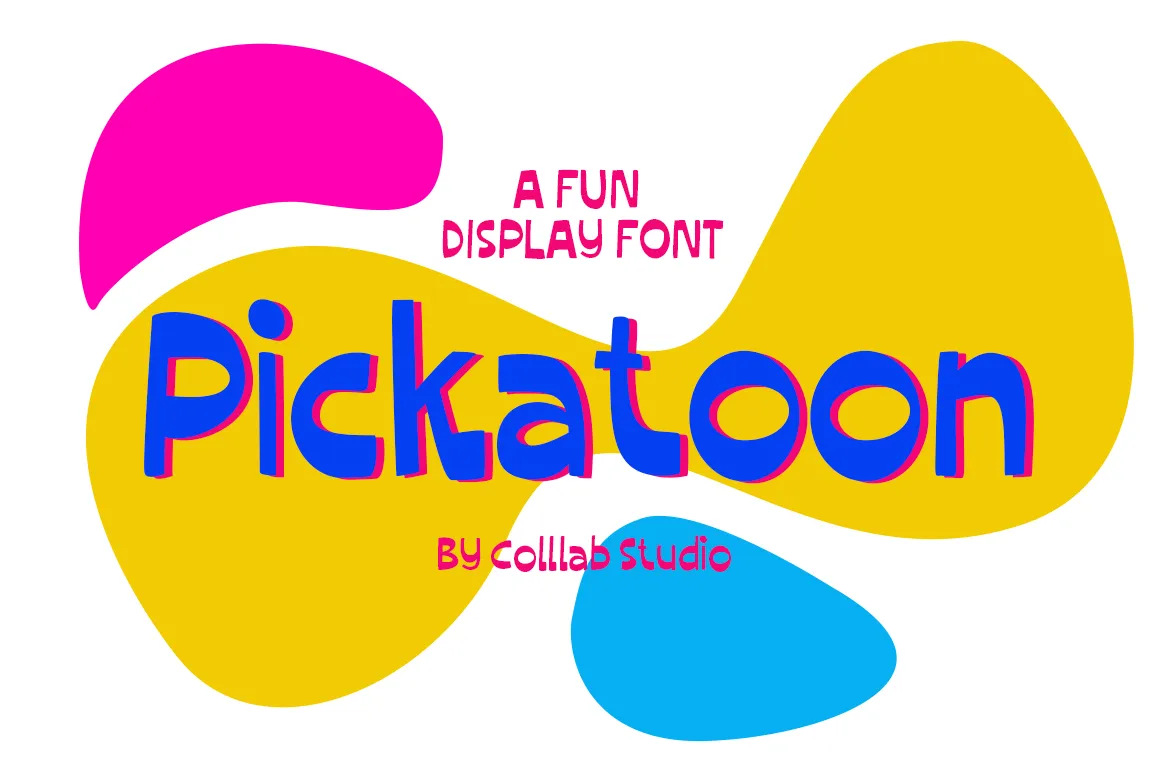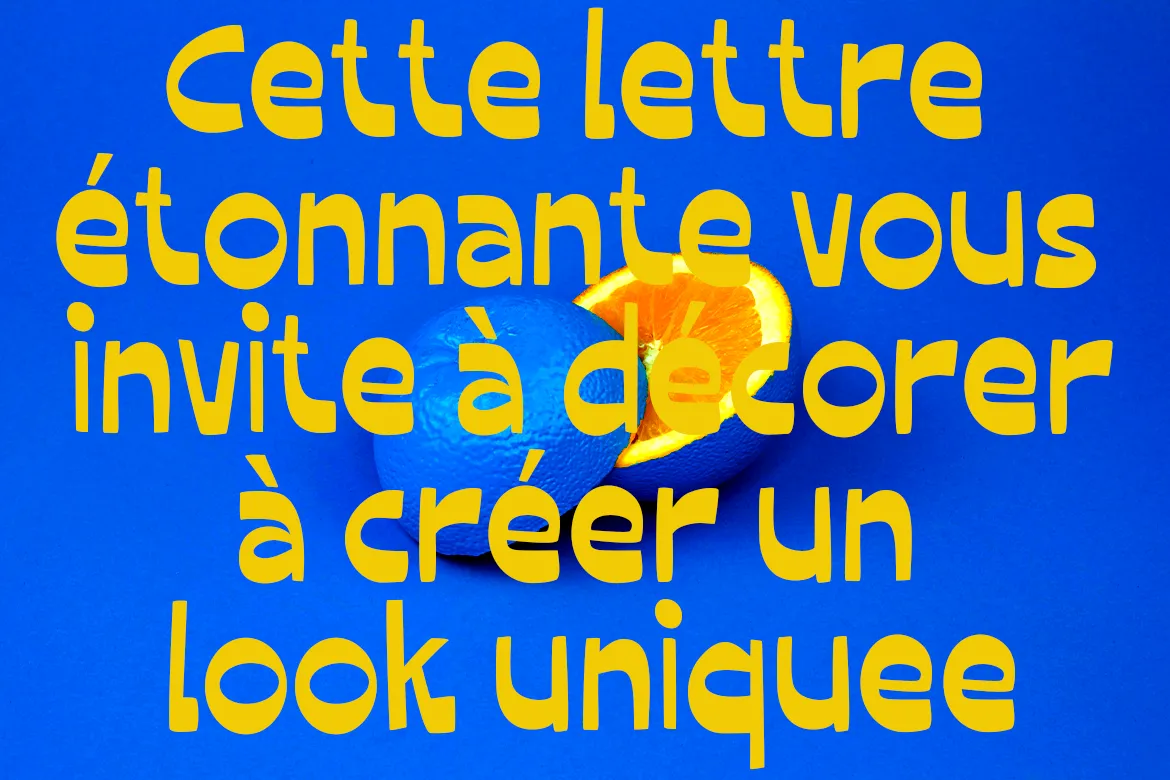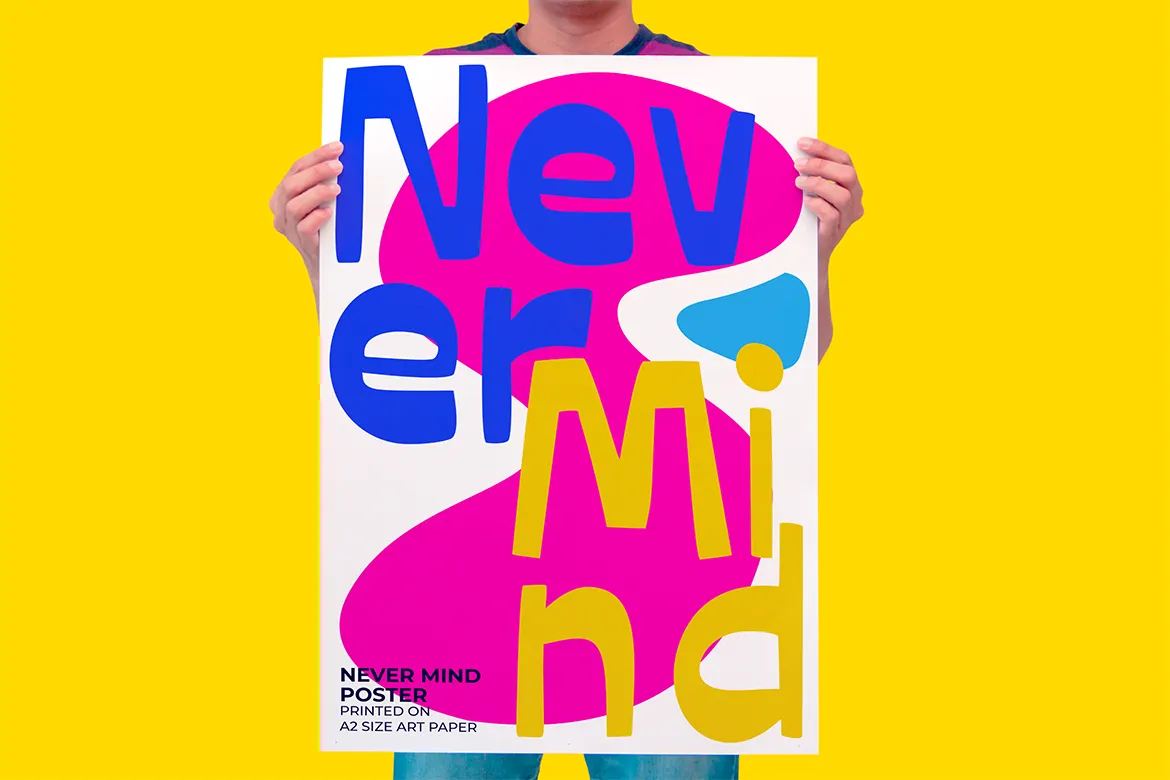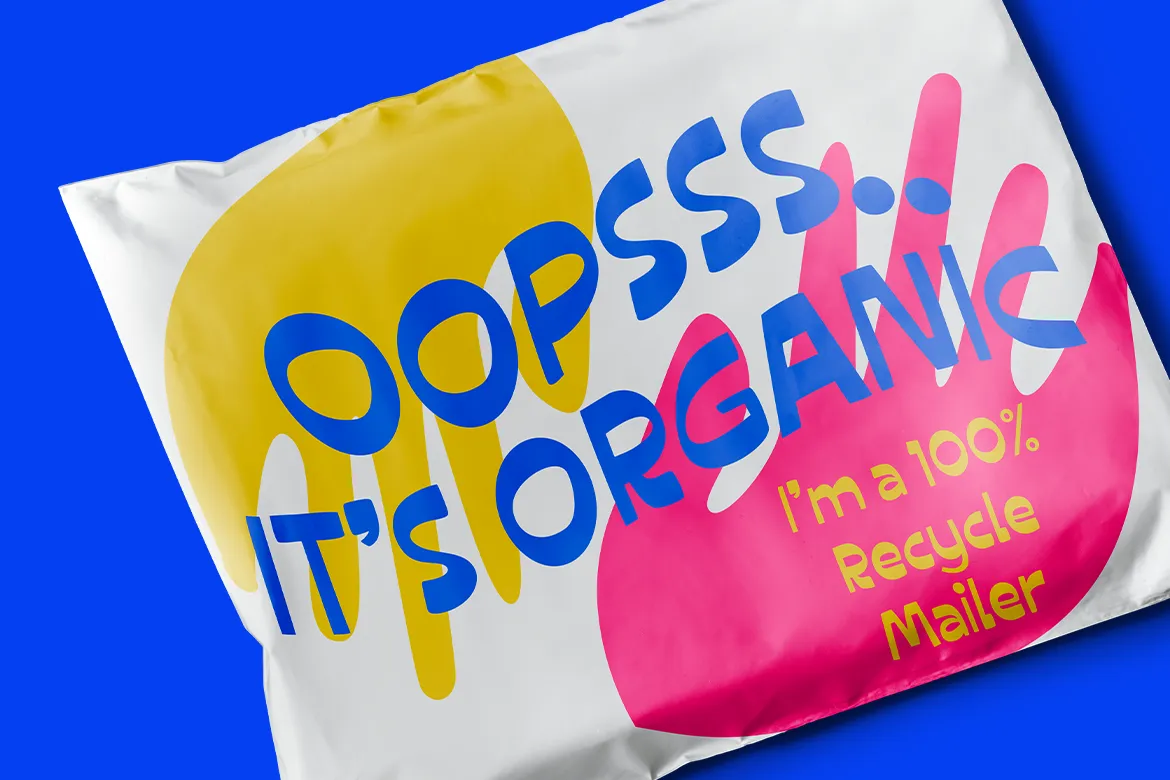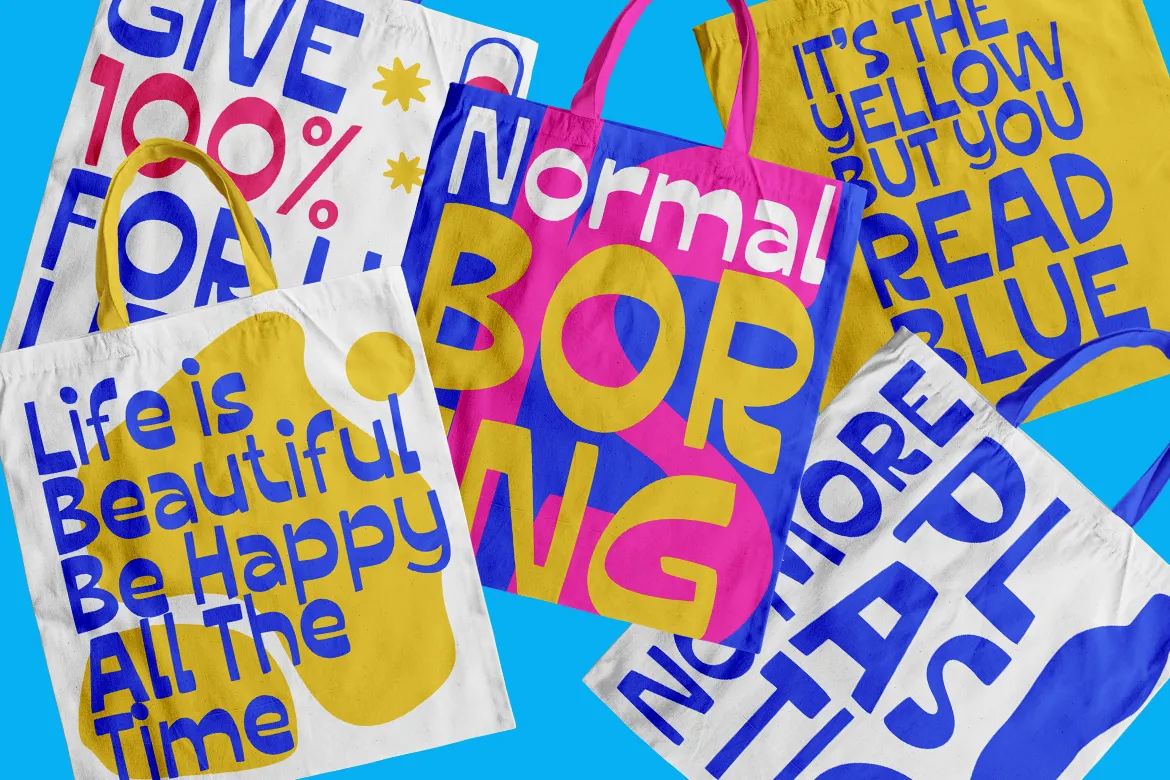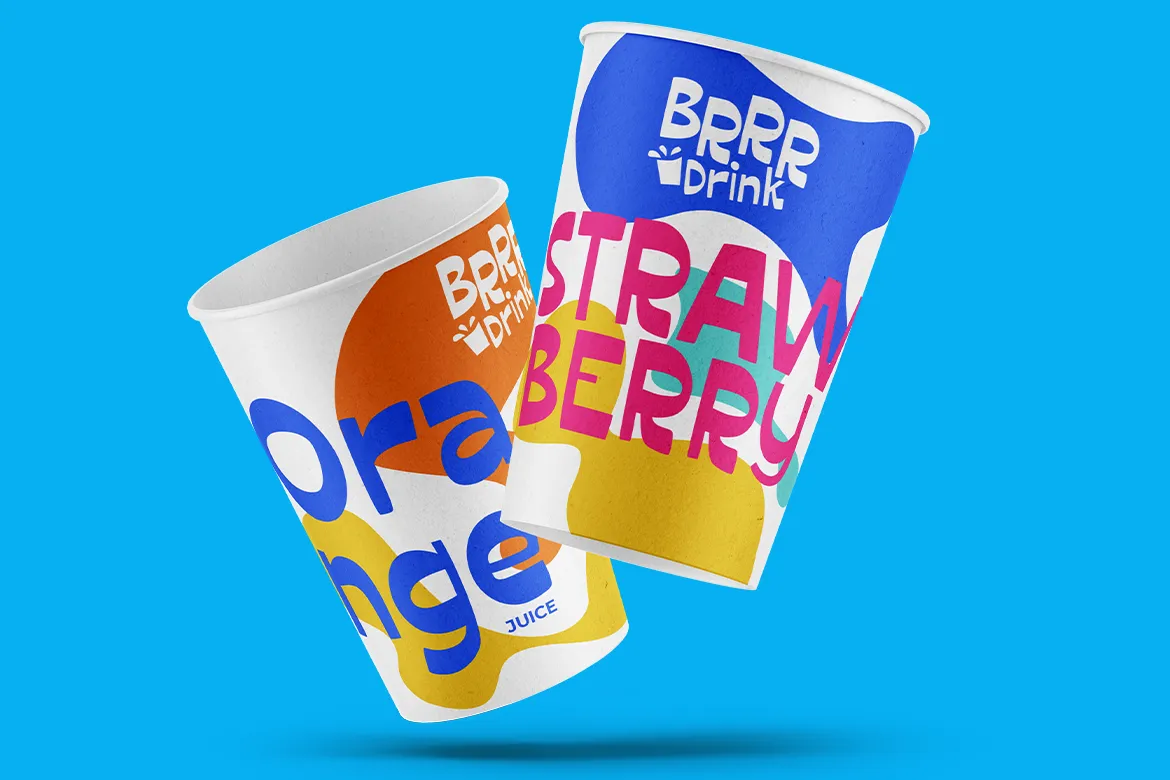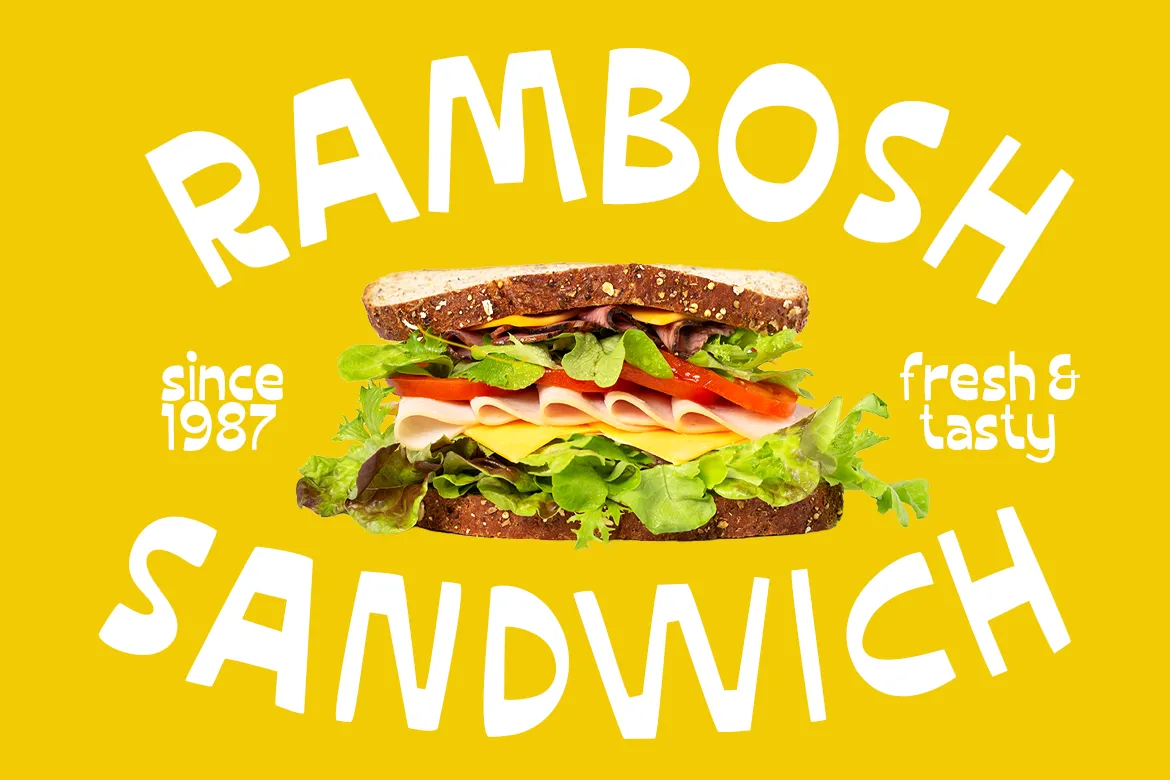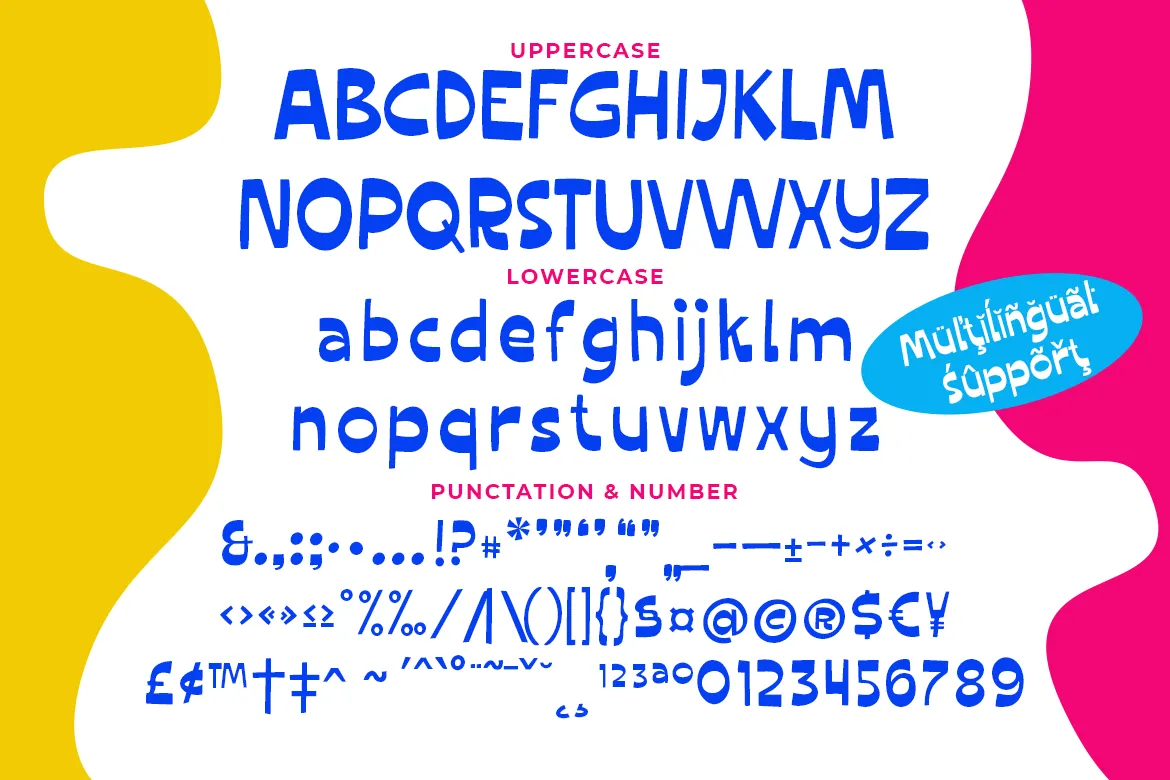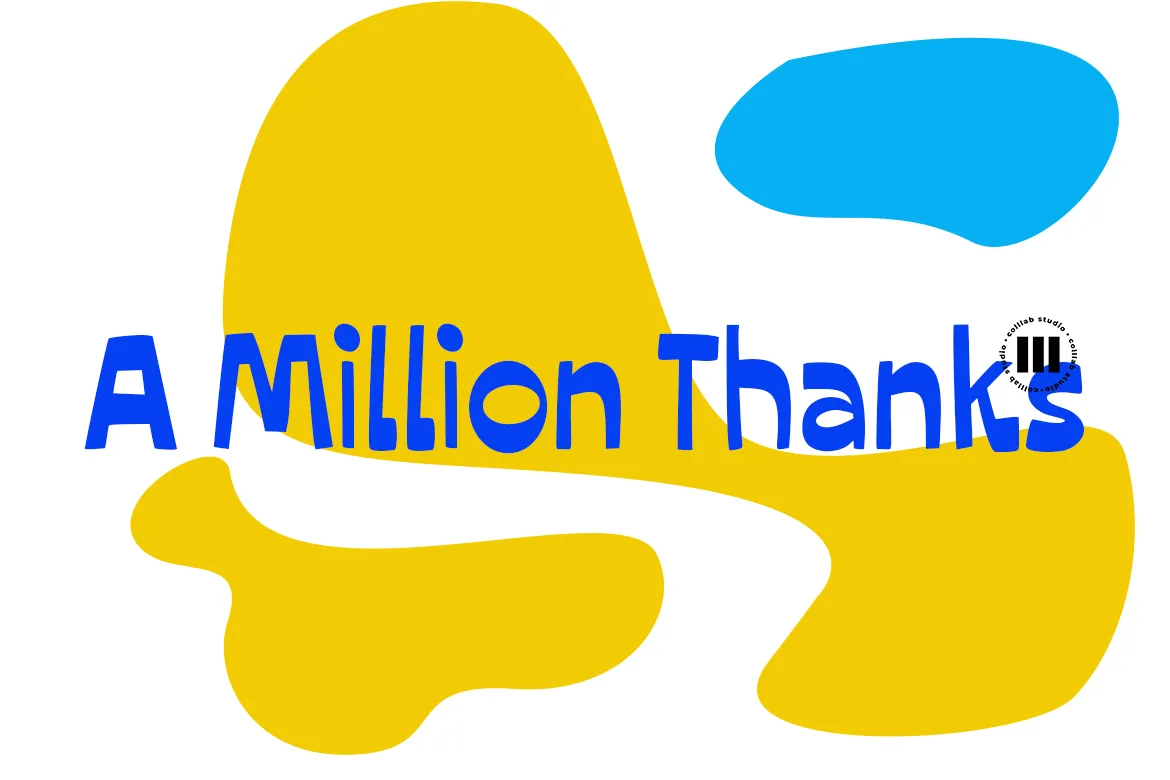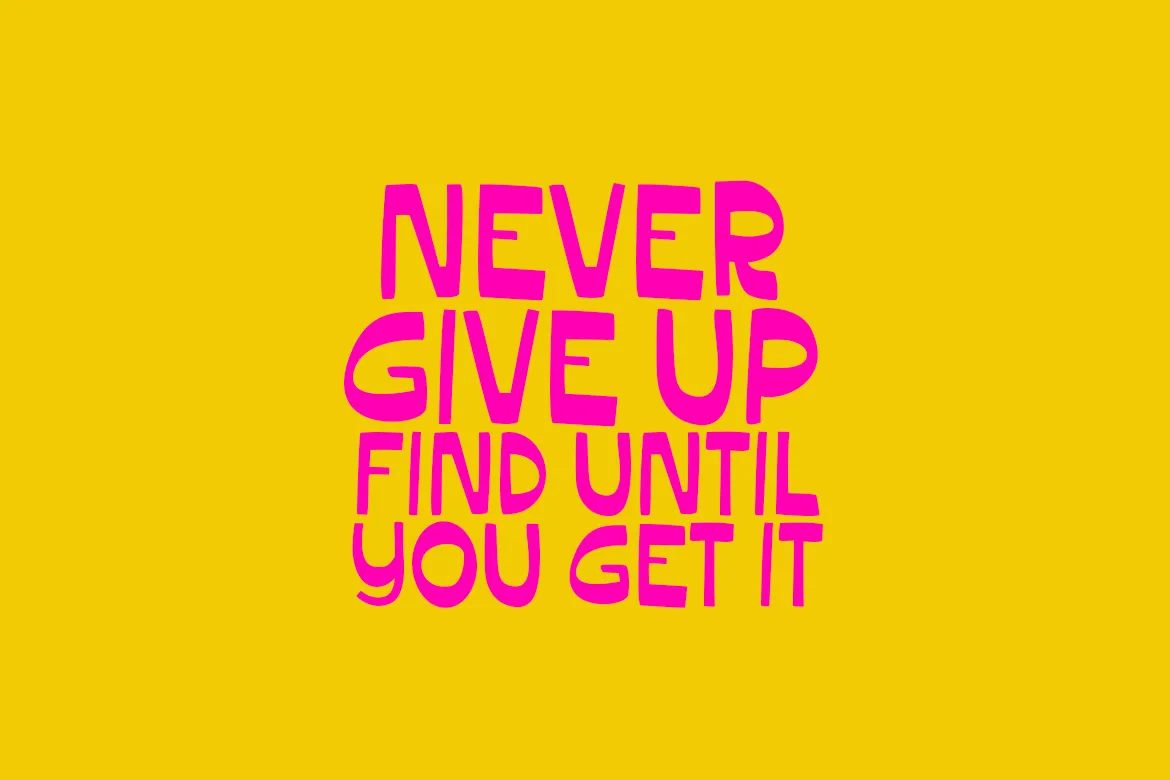
Pickatoon
Pickatoon is a fun display font that we made because we knew what people wanted.
Pickatoon has the look of your favorite childhood markers. It’s not just for comic books, it’s for EVERYTHING. It’s for your Instagram selfies, it’s for school projects, it’s for your business logo, it’s for your coloring books—it even works great with watercolors!
We put a lot of time into making Pickatoon perfect. We knew you’d need it to be thick and thin and fat and skinny, so we did our best to make sure all those variations were available in every letter. And when you’re drawing, you don’t just want to draw the same thing over and over again—you want to be able to change things up with some simple tools. So we made sure that Pickatoon had different ways you could vary the thickness and give your work some character.